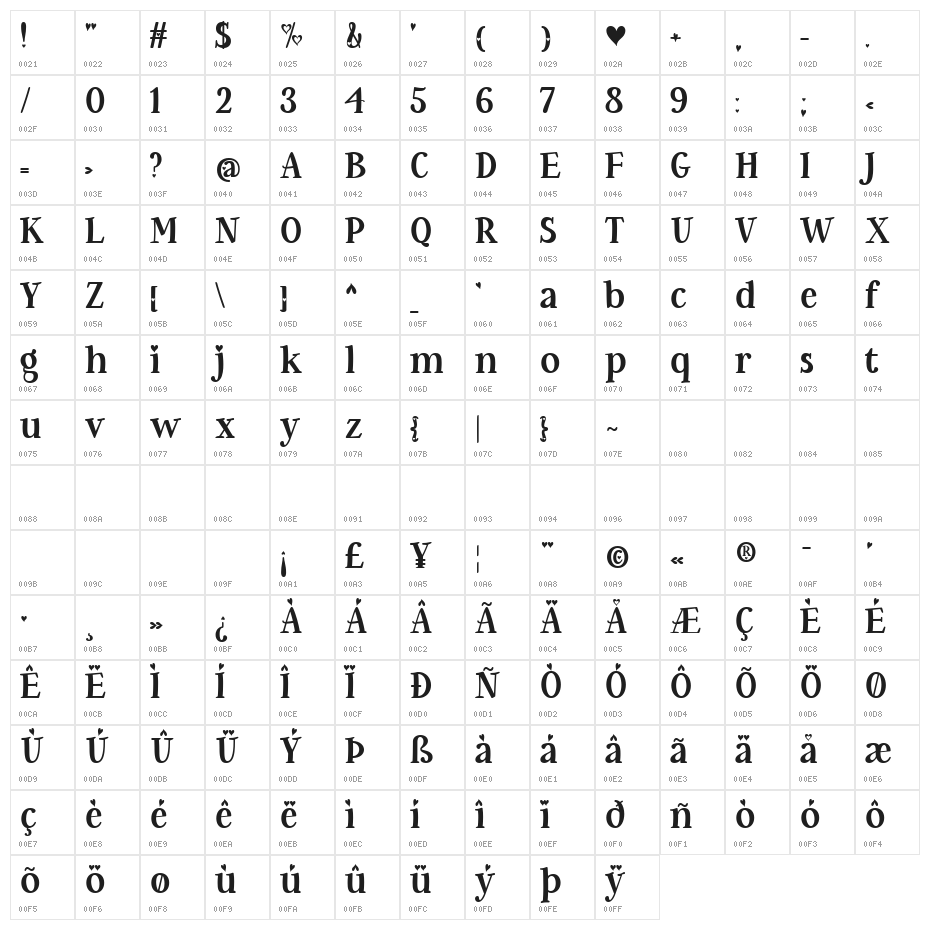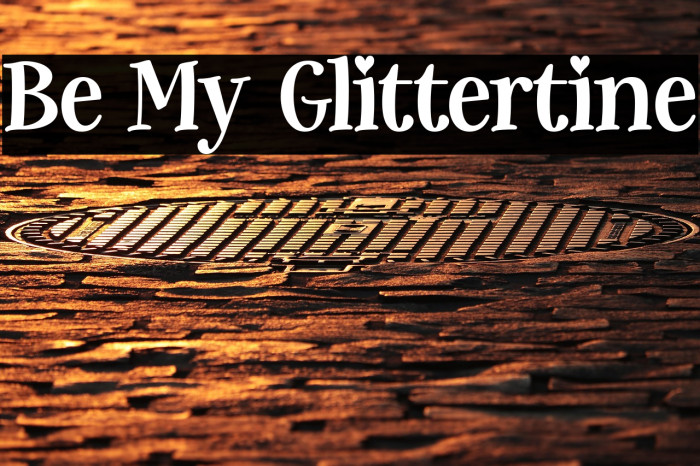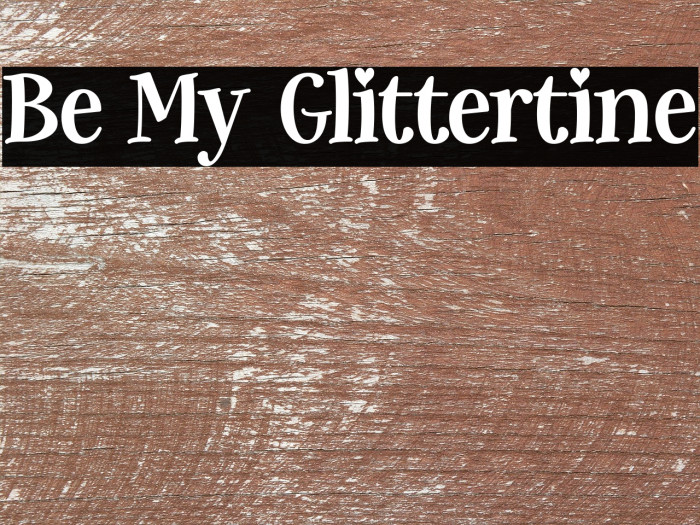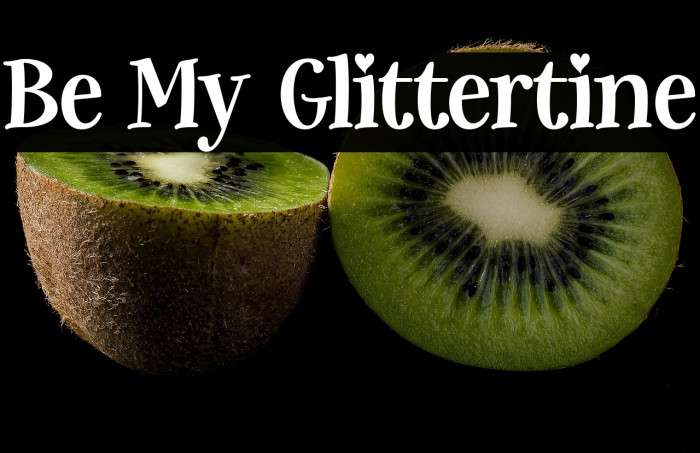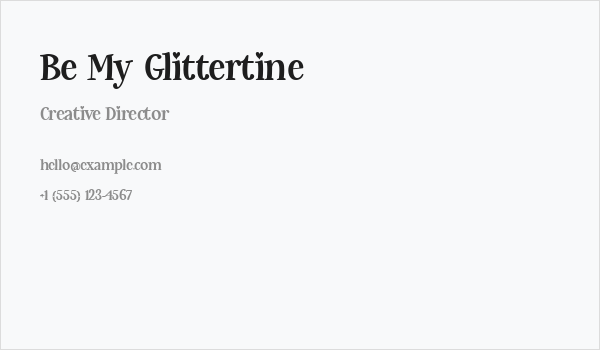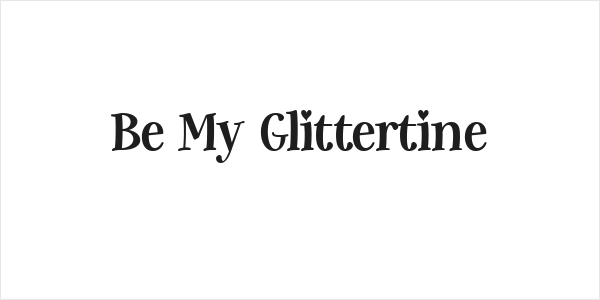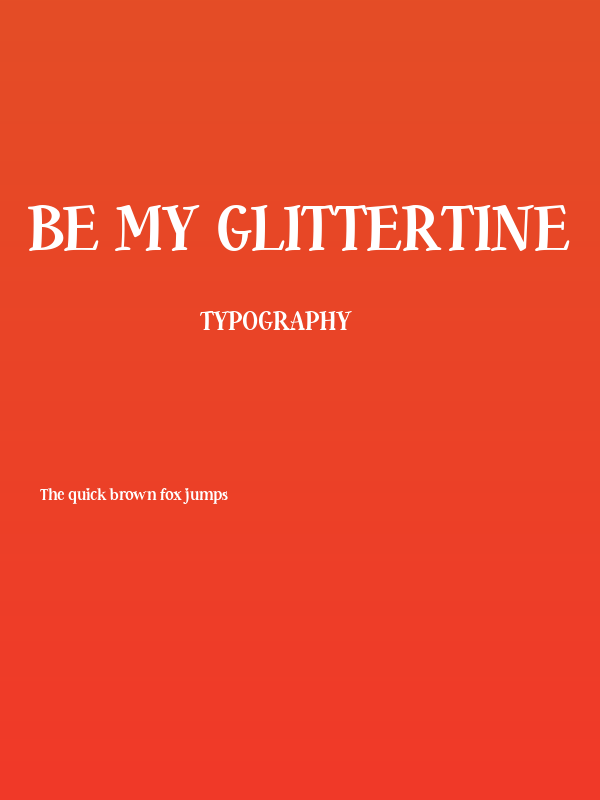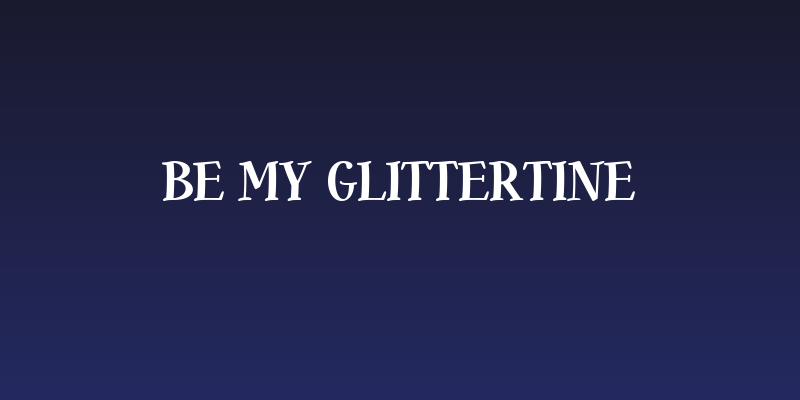
Be My Glittertine Font
Be My Glittertine Description
This playful and whimsical font features a unique blend of decorative elements and bold strokes. The uppercase letters are characterized by their slightly exaggerated serifs and a playful twist, while the lowercase letters maintain a consistent flow with charming heart motifs integrated into certain characters. The numerals are bold and rounded, providing a friendly and approachable appearance. Special characters are adorned with heart shapes, adding a touch of romance and fun. This font is perfect for projects that require a lighthearted and joyful aesthetic.